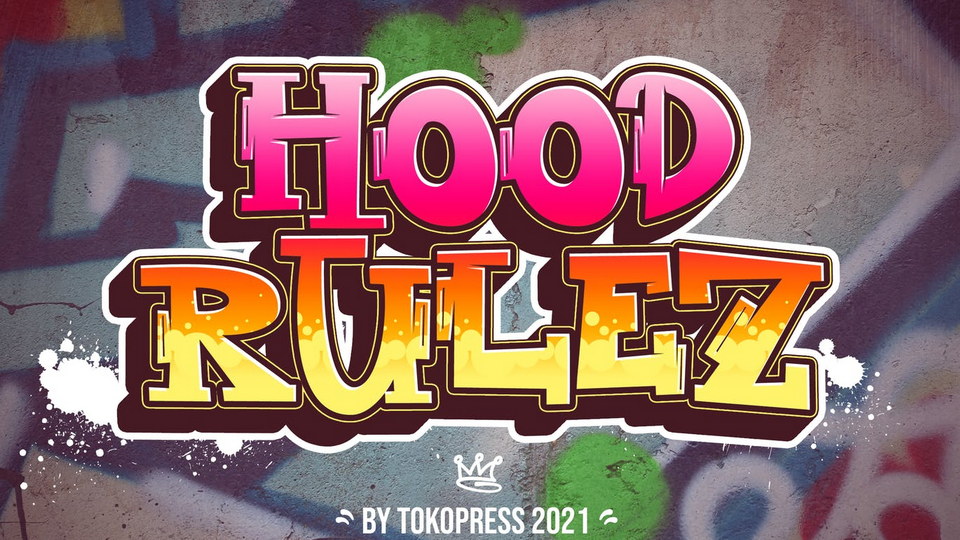
Download Hood Rulez font, a graffiti typeface. It’s in the hood, we all united as one. Rebellious and powerful yet playful graffiti font for your project.